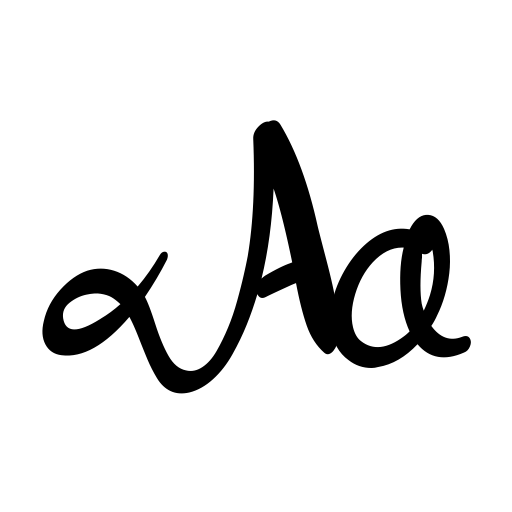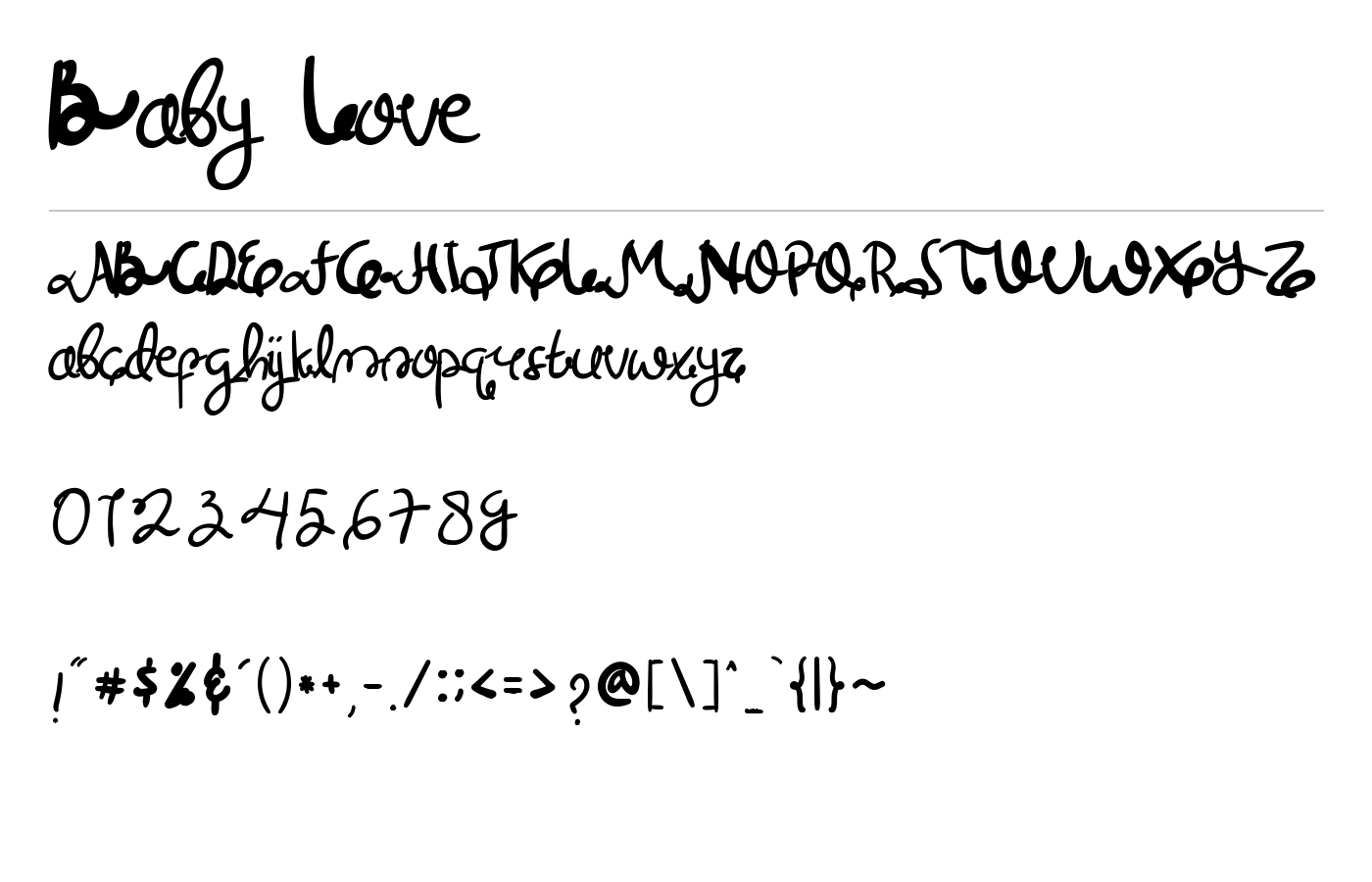
Baby Love is a playful and casual handwritten script font with a lively, organic feel. Its imperfect, flowing letterforms and varying stroke thicknesses give it a warm, approachable personality, making it ideal for projects looking to convey friendliness and charm, such as children's products, greeting cards, or informal branding. This font works best in logos, informal headlines, and creative designs where a spontaneous, personal touch is desired.
Baby Love Font
About Baby Love Font